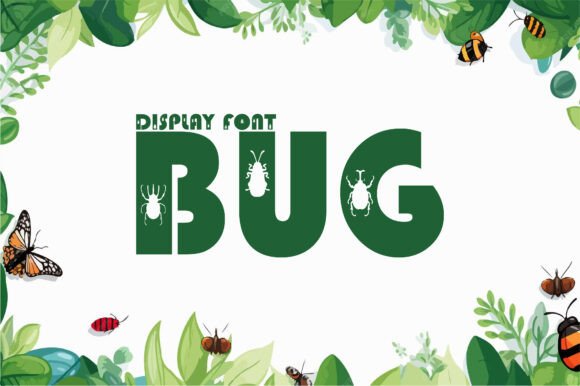
Font That Speaks: How Bug Elevates Your Brand
A Simple Choice, A Big Impact
Last week, I was tasked with updating the packaging for my small handmade soap line. The old labels were a bit generic, and I wanted something that would stand out on shelves but still feel approachable and trustworthy. I needed a font that could convey both creativity and professionalism. That’s when I discovered Bug, an insect-themed alphabet SVG font that immediately caught my eye.